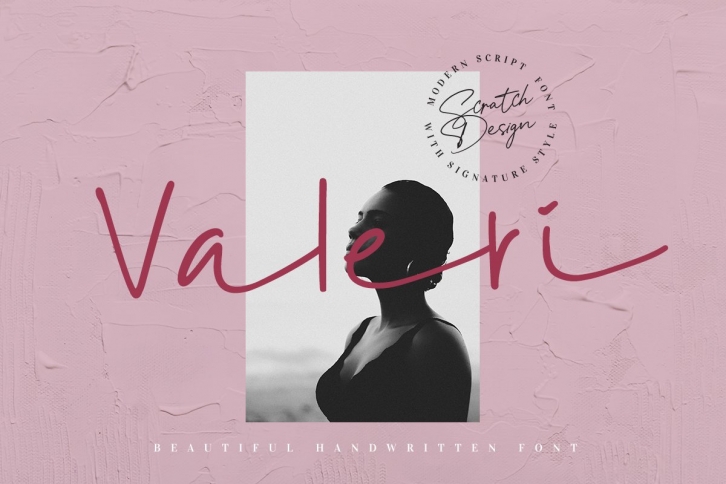
Introducing our new font "Valeri", a gorgeous modern script font. This font is made to create stunning logos, quotes, wedding invites, blog posts, Instagram, signatures, posters, postcards, and more! This font includes ligatures and swashes to make everything look perfectly natural, handwritten, smooth, and dynamic. Valeri also contains Numbers and Punctuation and International language support.